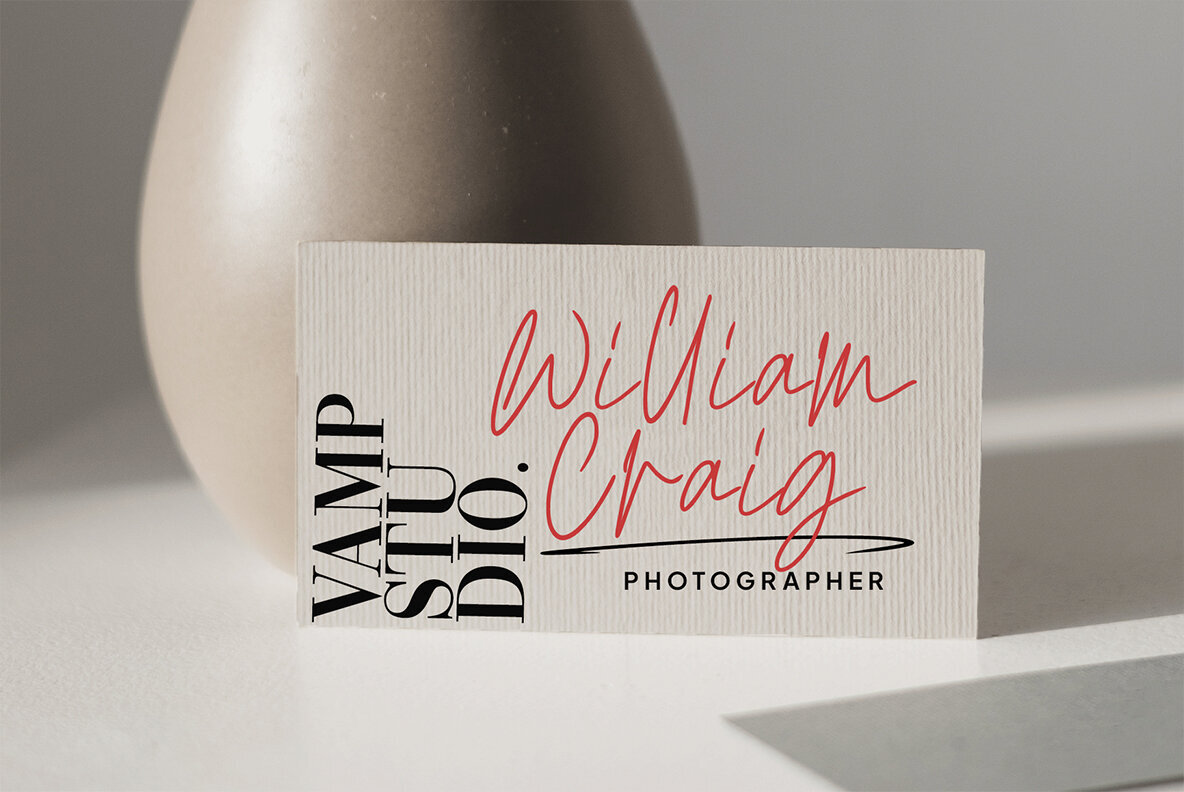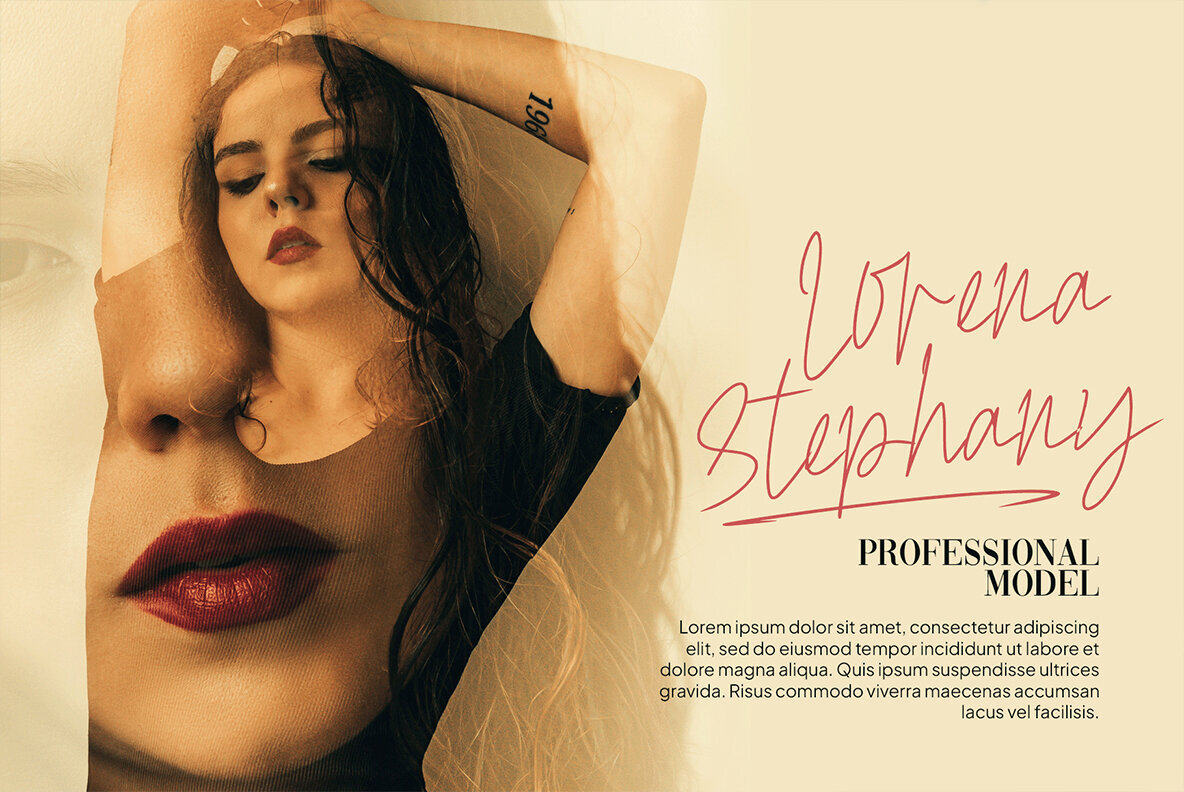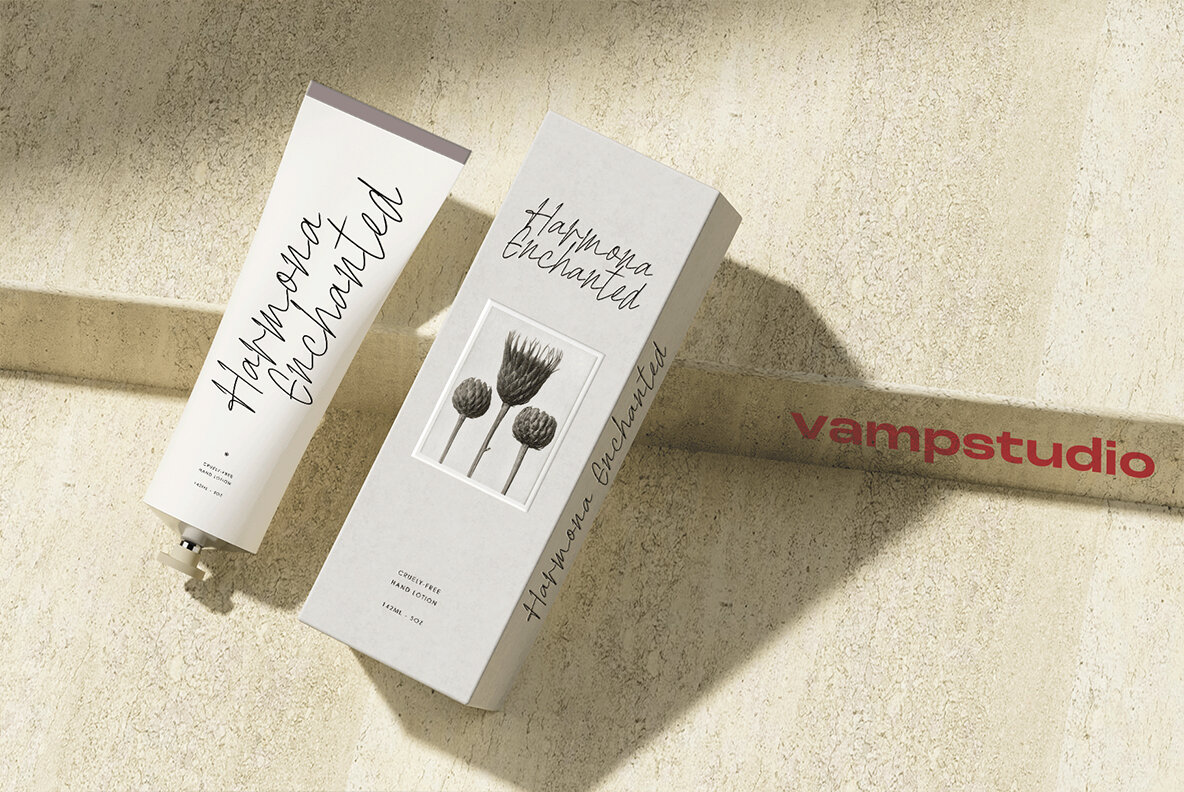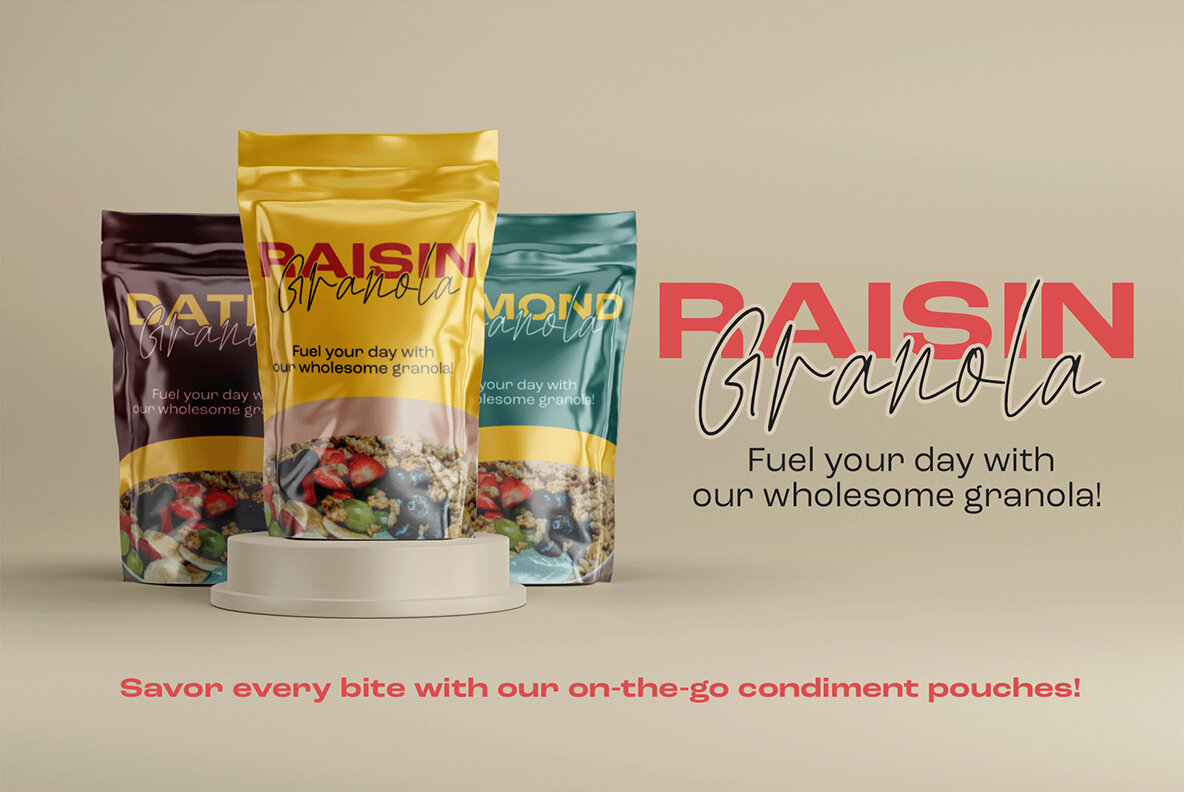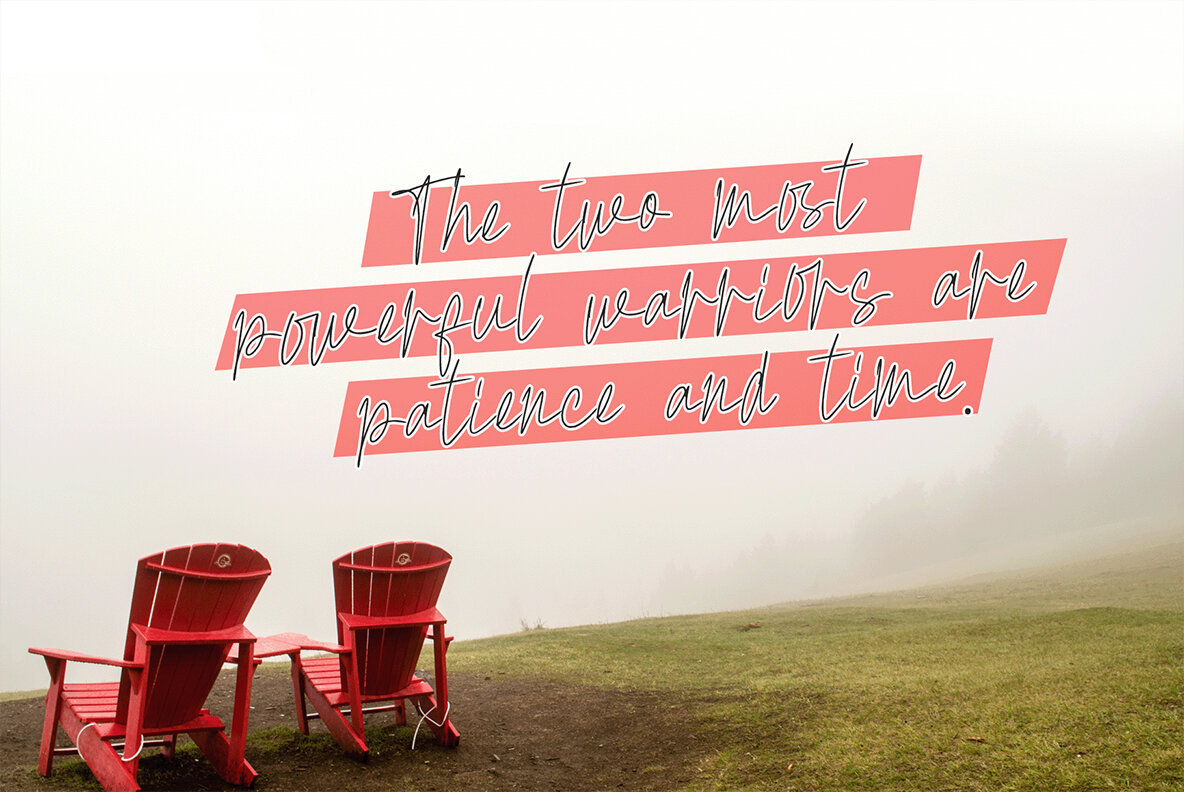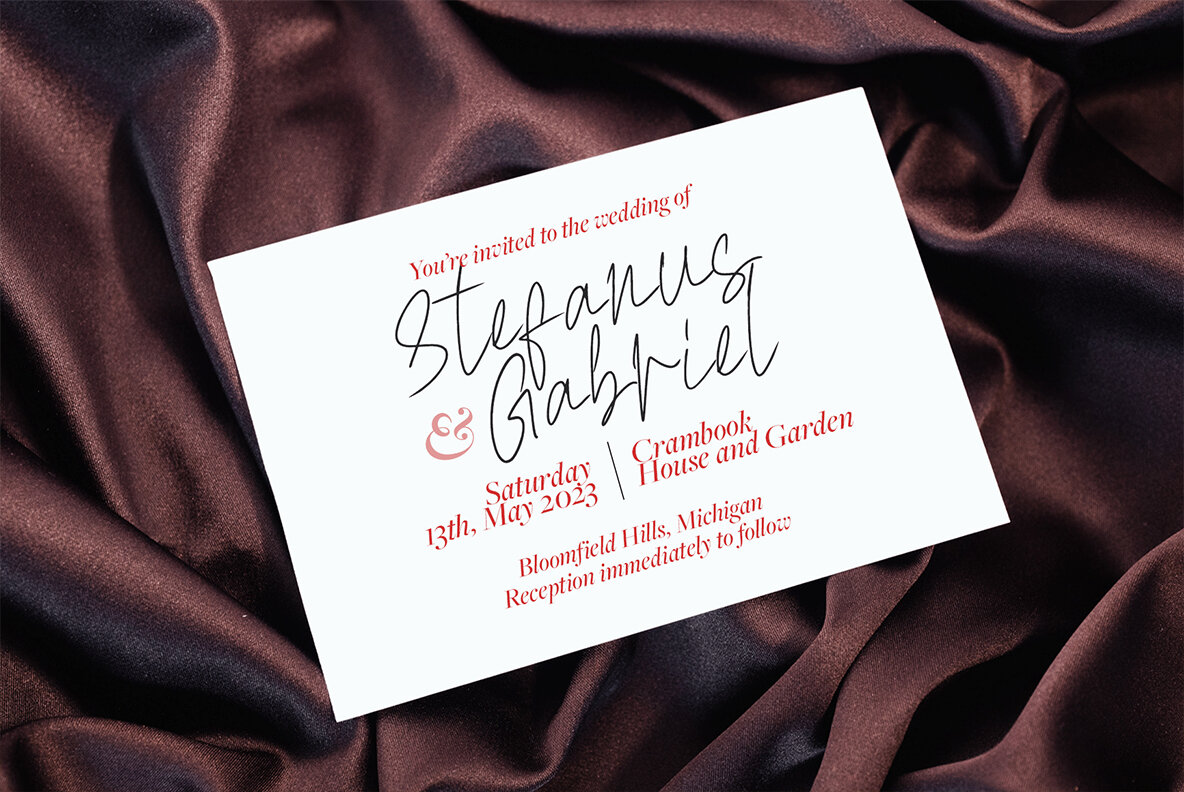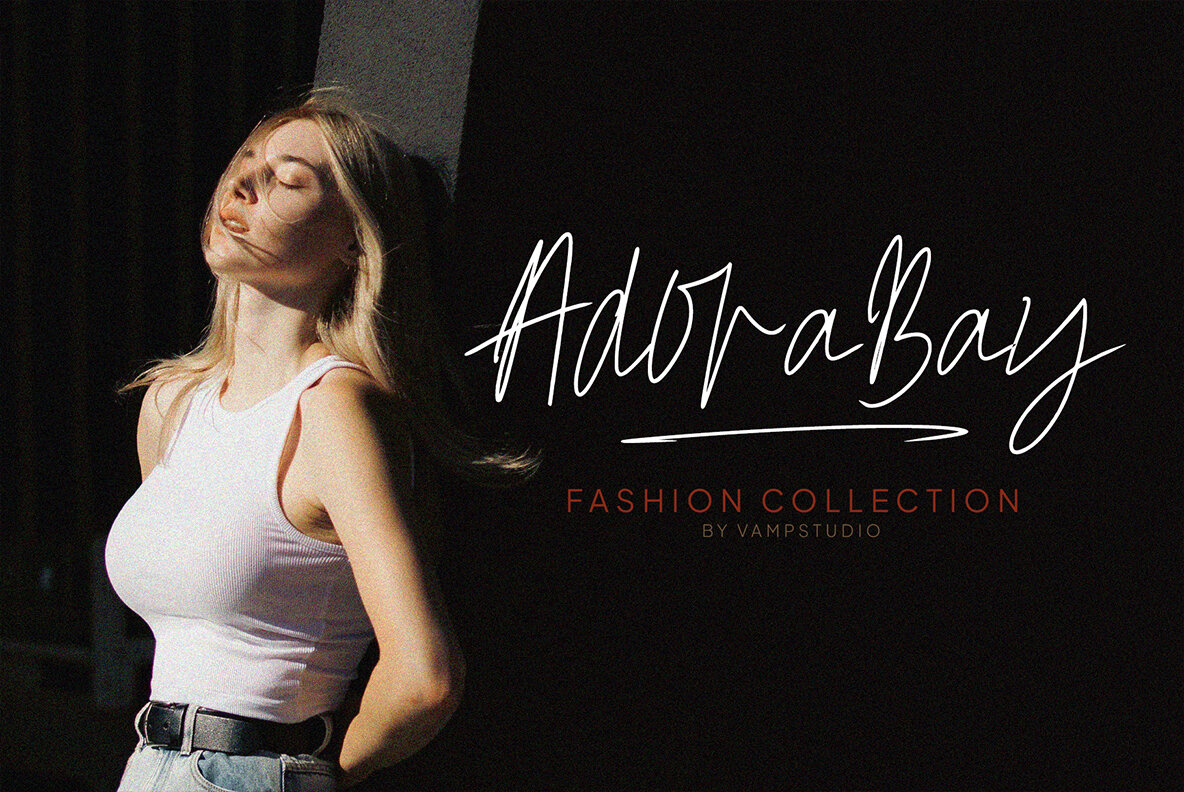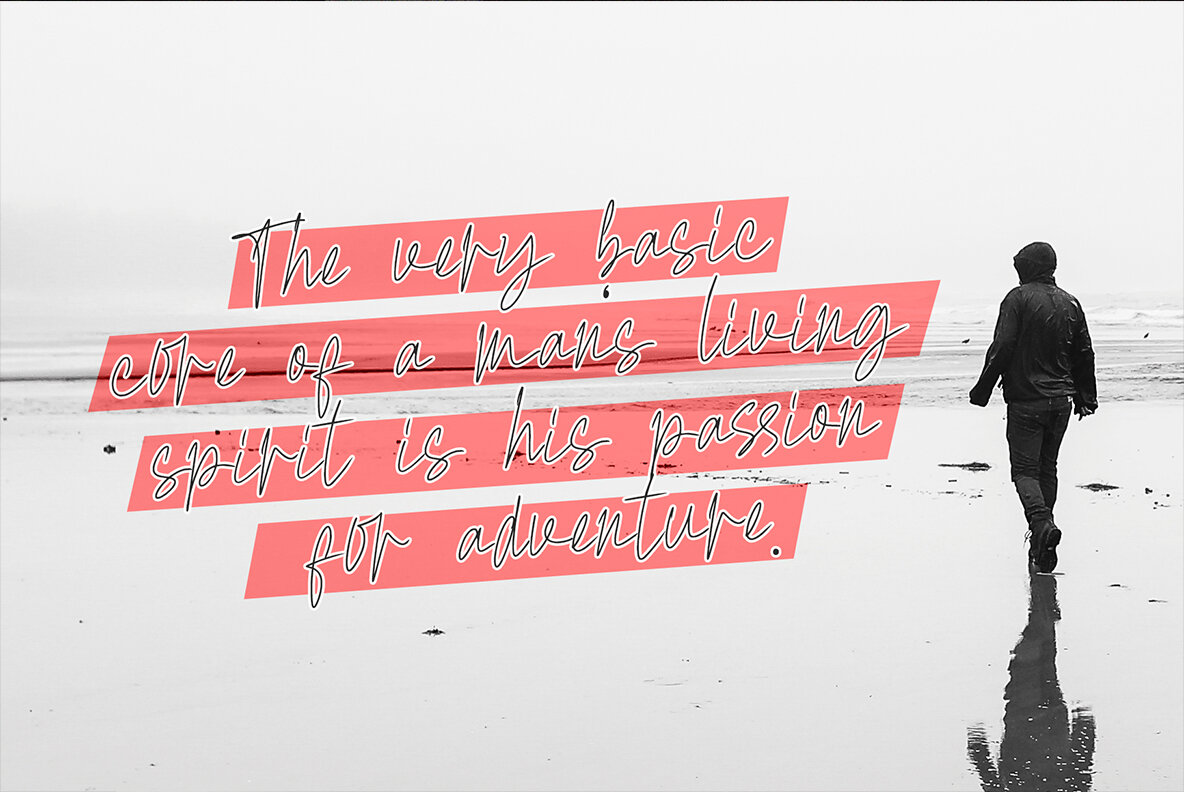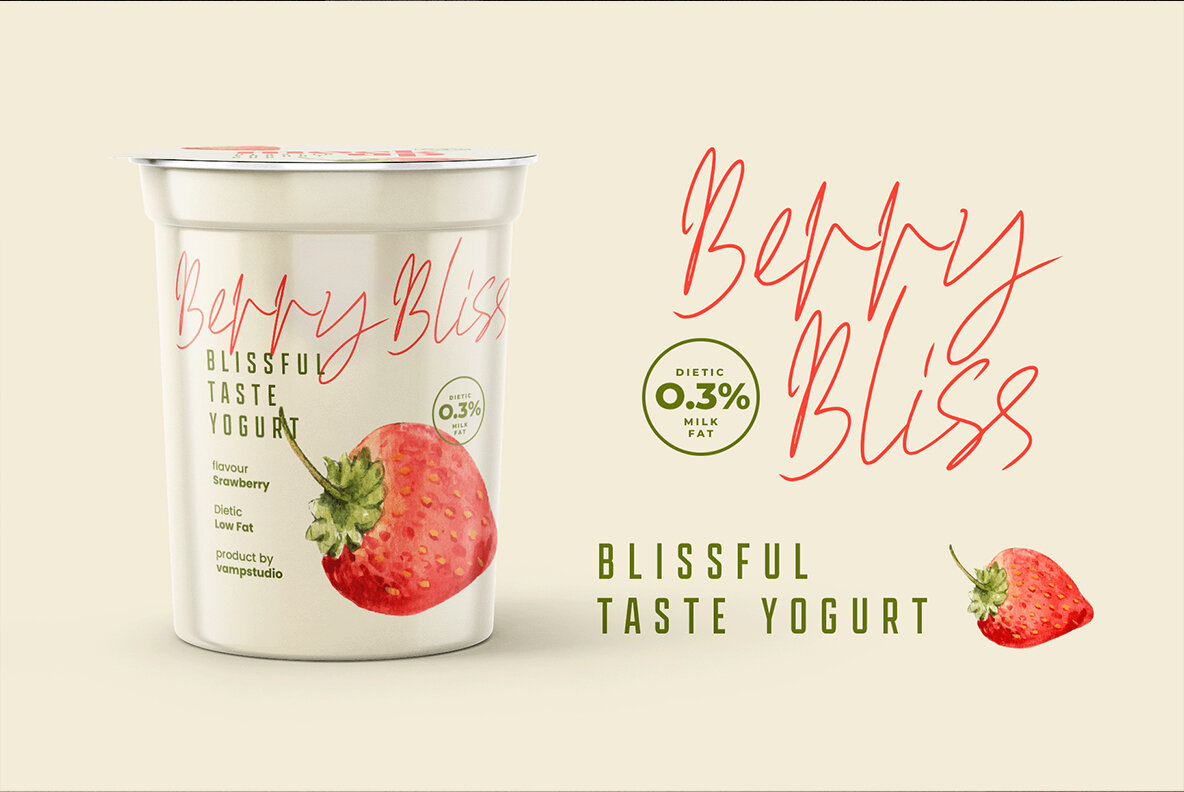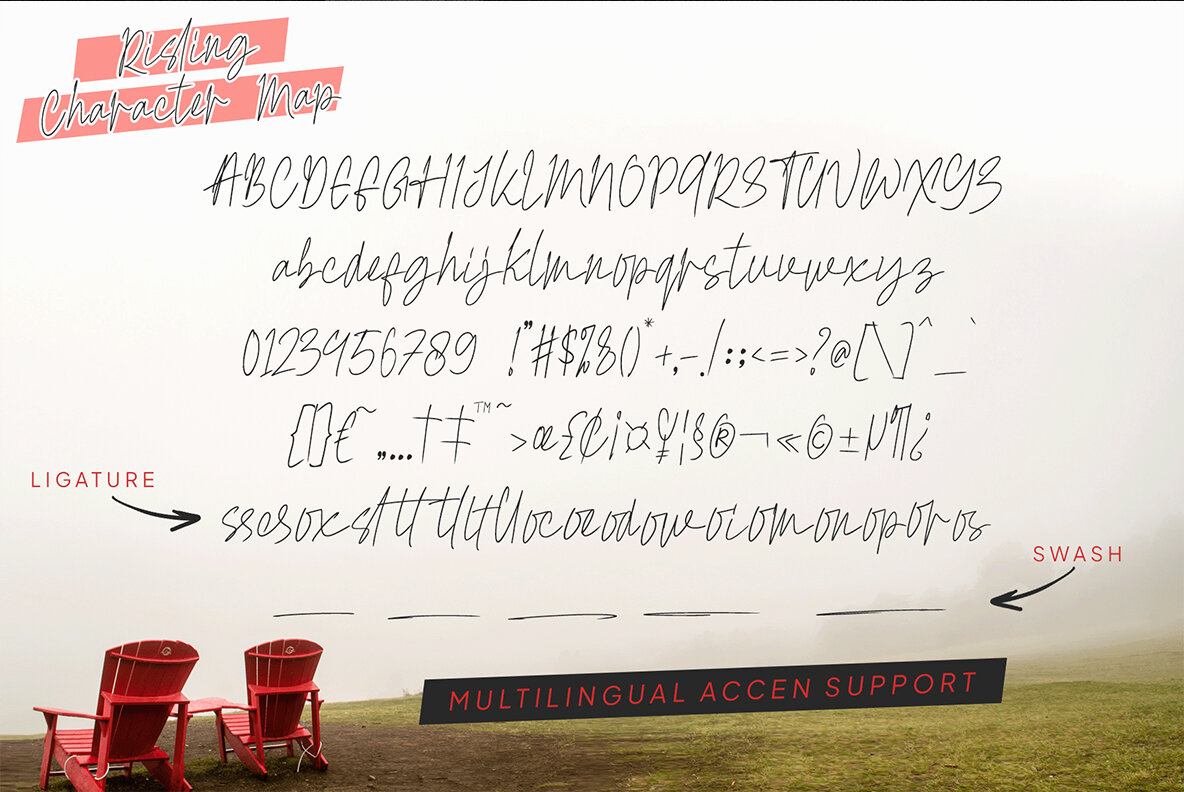
Risling Font
Risling Regular
Risling Script Style – a new modern & fresh monoline script with a handwritten and script style make this font looks elegant, natural, stylish and perfect for any awesome projects that need handwriting taste. Risling would perfect for photography, watermark, social media posts, advertisements, logos & branding, invitation, product designs, label, stationery, wedding designs, product packaging, special events or anything that need handwriting taste.